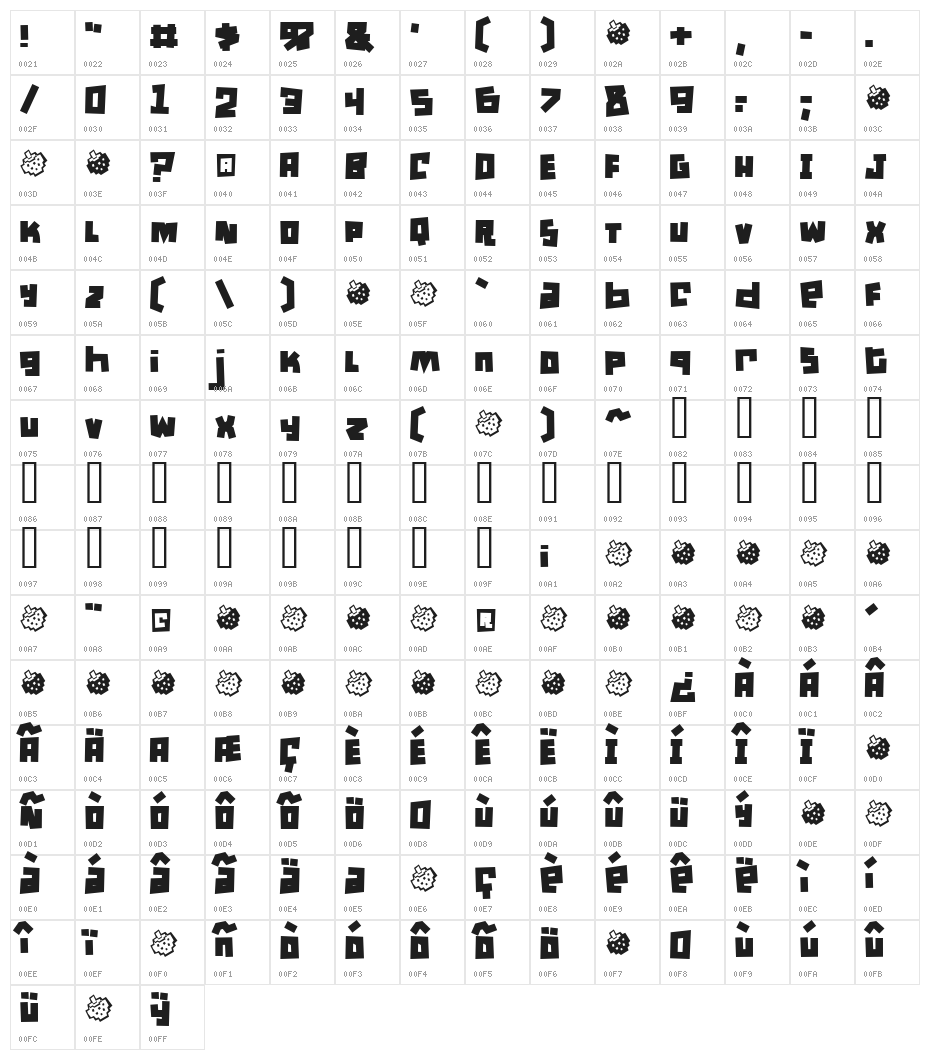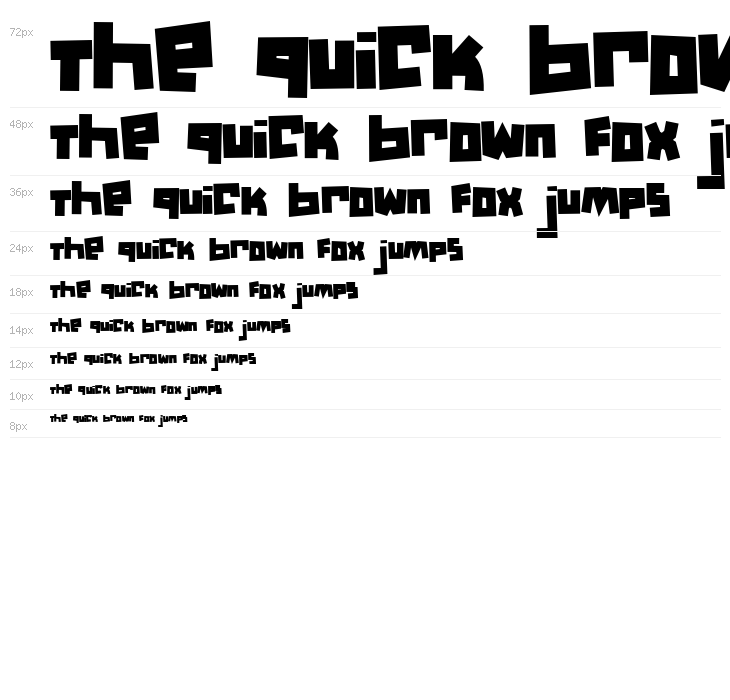
Mullet Font
Mullet Description
This font features a bold and blocky style with a playful, geometric appearance. The characters are constructed with sharp angles and exaggerated proportions, giving it a dynamic and energetic feel. The uppercase and lowercase letters maintain a consistent width, while the numbers and special characters follow the same bold aesthetic. This font is designed to grab attention with its strong visual impact, making it ideal for creative and unconventional projects.
| Proposed Projects | Perfect for posters, album covers, video game graphics, and any project needing a bold, eye-catching typeface. |